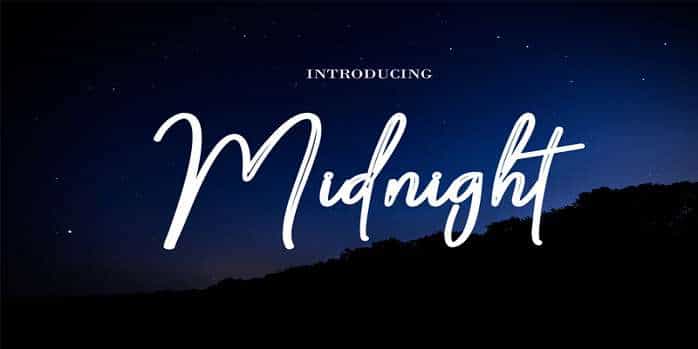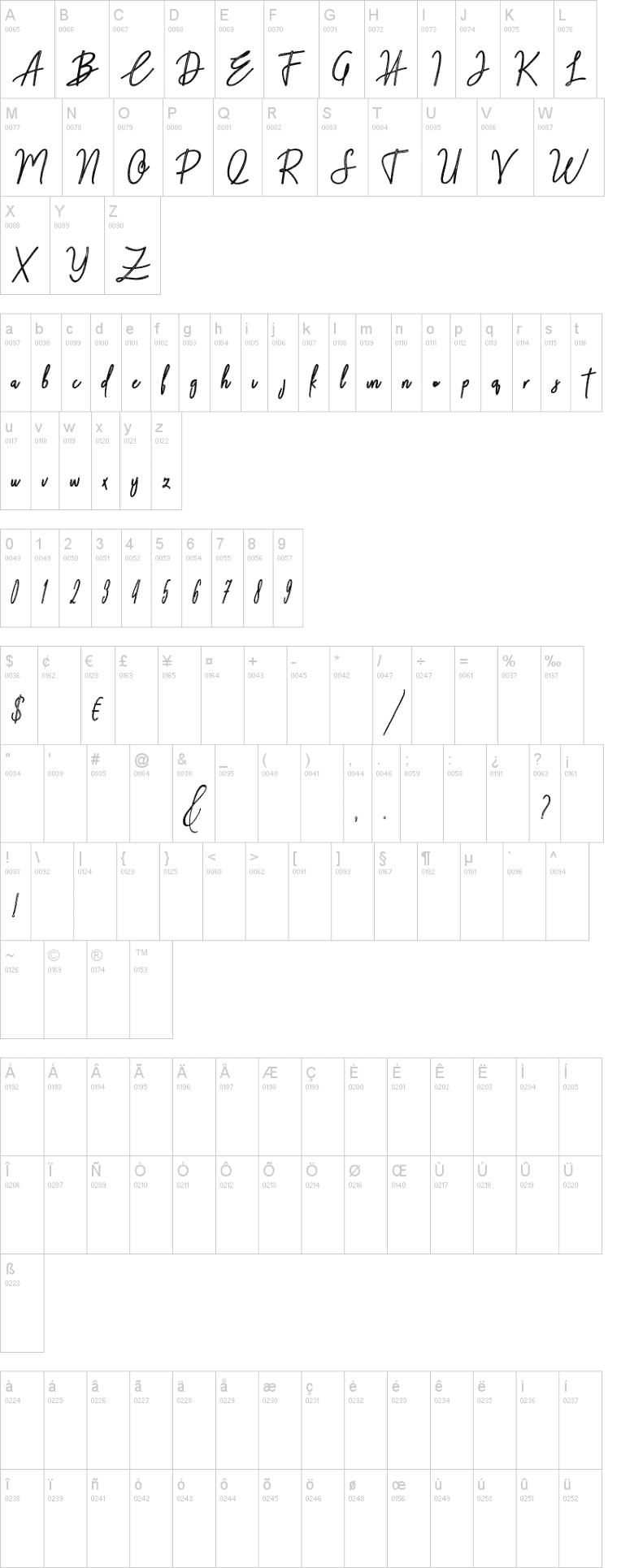
Midnight Script is a new fresh & modern style handwritten font for all graphic designers that love script and calligraphy font!It is so great for invitation, such as greeting cards, branding products, business cards, quotes, posters, and etc. ZIP files include the following: Midnight. OTF Midnight . TTF In case you are using Mac operating system, you may access all the other flying machines through Font Book while in Windows, the same flying machines can be accessed through the Character Map.